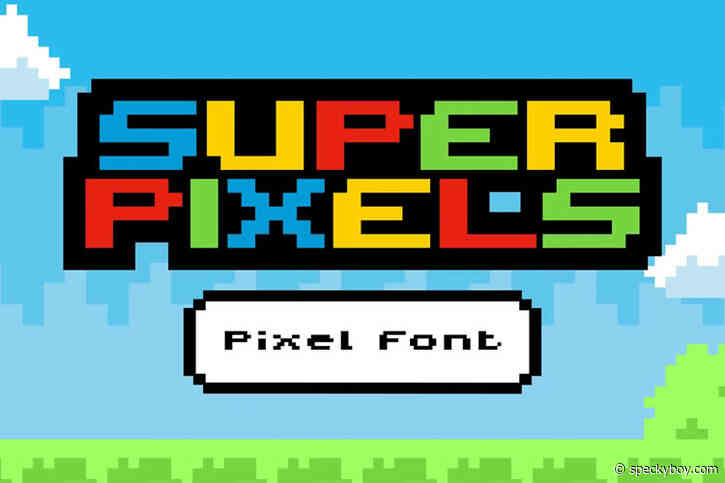
Everyone loves a retro aesthetic. Pixel fonts offer a great way to add this old-school techno look to your projects. They prompt memories of classic video games, computer systems, and plenty of pop culture references.
They’re also more flexible than you might imagine. App development is a natural fit. Or use them as a headline font for your gaming blog. They also add a touch of fun to print materials, digital artwork, and video presentations.
Pixel fonts also feature a wide range of styles